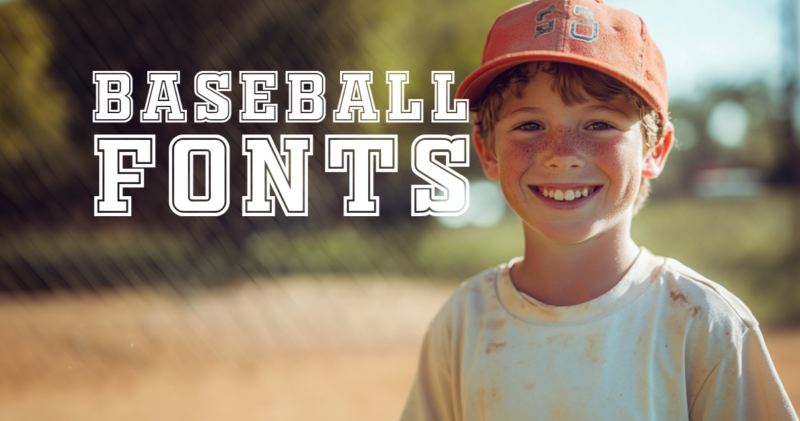
Hey baseball fans (or font enthusiasts?)… Buckle up for a typographic journey that’s about to knock it out of the design park.
Having weathered two decades of digital design, I’ve watched fonts fly by faster than a blazing fastball. But baseball fonts? They’re the all-star players of the typography lineup – timeless, powerful, and always ready to make an impact.
Here are some of my current favs:
The All-Star Lineup… Baseball Fonts That “Hit It Out of the Park”
Baseball
Talk about hitting it out of the park! This font captures the essence of America’s favorite pastime with its playful yet authentic style. It’s perfect for adding that ballpark magic to your projects, whether you’re designing team logos, event posters, or even baseball-themed party invitations. Trust me, this font will make your designs as exciting as a bottom-of-the-ninth rally!
Basebold – Sport Varsity Baseball Font
Now here’s a font that really steps up to the plate! Basebold is like the cleanup hitter of baseball fonts – bold, confident, and ready to make an impact. Its varsity-inspired look brings that classic ballpark energy to any design. Whether you’re creating sports branding or just want to add some athletic flair to your work, Basebold is ready to play ball!
Groundout
Inspired by the iconic San Francisco Giants logo, Groundout is a real heavy hitter in the world of baseball fonts. Its bold, no-nonsense style practically screams “Take me out to the ball game!” This font is perfect for when you need your designs to have that all-American, heritage baseball team vibe. From sports logos to vintage-style posters, Groundout is ready to knock it out of the park!
Broffont
Batter up! Broffont steps to the plate with a script that’s as smooth as a well-oiled glove. With its vintage-inspired curves and two delightful variants, this font is like having a switch-hitter in your design lineup. Whether you’re crafting a retro team logo or adding some ballpark flair to your branding, Broffont is ready to play ball with style!
Desporm – Sport Display Typeface
Desporm steps up to the plate with a typeface that’s as dynamic as a bases-loaded showdown. This sport display font captures the raw energy and toughness of athletic competition. It’s like having a MVP slugger in your design lineup – powerful, attention-grabbing, and ready to deliver clutch performances. Whether you’re crafting team logos, event posters, or sports apparel, Desporm is primed to hit your designs out of the park!
Changeball
Just like its namesake pitch, Changeball keeps your designs interesting with its smooth, rounded corners and heritage-inspired look. This font throws a curveball to boring typography, perfect for when you need your sports logos, apparel designs, or magazine headlines to really sing. It’s the typographic equivalent of a perfect changeup – unexpected and totally effective!
Garnesline Baseball Sport Font
Garnesline steps up to the plate with a retro-style script that’s as classic as a seventh-inning stretch. This font brings the nostalgia of old-school baseball to your designs, perfect for team jerseys, vintage-inspired logos, or any project that needs a touch of America’s pastime. With Garnesline, you’ll knock your designs right out of the park!
Baseball Sport – Sport Varsity Baseball Font
Batter up! Baseball Sport steps to the plate with not one, but two heavy-hitting styles. This font family is like having a versatile switch-hitter in your design lineup. Whether you’re creating eye-catching headlines or crafting the perfect sports logo, Baseball Sport delivers that classic varsity vibe with a modern twist. It’s a real game-changer for any designer looking to hit a home run with their projects!
Detourne – Baseball Script Font
Detourne steps up to the plate with a script that’s as smooth as a well-executed double play. This font brings that classic baseball elegance to your designs, perfect for everything from team logos to vintage-inspired posters. With its fluid letterforms and retro charm, Detourne is like having a Hall of Fame calligrapher on your design team. Get ready to knock your projects out of the park!
Valro – Baseball Script Font
Valro steps up to the plate with a bold script that’s as American as apple pie and, well, baseball! This font brings that classic 80s and 90s energy to your designs, perfect for sports teams looking to up their branding game or anyone wanting to add a touch of retro coolness to their work. Valro is like the cleanup hitter of fonts – it’s going to make a big impact every time!
Varsity Modern – Sport Baseball Varsity Font
Varsity Modern steps up to bat with a font that’s as bold and dynamic as a grand slam in the bottom of the ninth. This typeface captures the spirit of the game while adding a contemporary twist that’ll make your designs pop. Whether you’re creating team merchandise or designing for the big leagues, Varsity Modern brings that winning combination of classic athletic style and modern flair. It’s a real MVP in any designer’s font lineup!
Supportex – Sport Baseball Font
Supportex steps up to the plate with a slab serif that’s as solid as a well-worn baseball glove. This font exudes strength and confidence, perfect for when you need your designs to hit it out of the park. Whether you’re creating bold sports logos, eye-catching posters, or standout apparel, Supportex is your cleanup hitter. It’s got the power to turn any design into a home run!
Baseball – Modern Display Font
Batter up! This modern display font steps to the plate with a design that’s as sleek and powerful as a perfectly swung bat. It captures the energy and excitement of America’s favorite pastime while adding a contemporary twist. Whether you’re designing for the big leagues or just want to add some sporty flair to your project, this font is ready to knock it out of the park. It’s a real game-changer for any designer looking to hit a home run with their typography!
Baseball Heroes | Fancy Handwritien Font
Step up to the plate with Baseball Heroes, a font that swings for the fences with its fancy, handwritten style. This script is perfect for adding a touch of personal flair to your designs, whether you’re creating custom jerseys, autograph-style graphics, or adding some pizzazz to your baseball-themed invitations. With Baseball Heroes, your designs will be signing autographs in no time!
Slemaxo – Baseball & College Font
Slemaxo steps up to bat with a font that’s as versatile as a utility player and as bold as a cleanup hitter. This typeface brings that classic college and baseball aesthetic to your designs, perfect for everything from team logos to campus merch. Whether you’re designing for the diamond or the quad, Slemaxo is ready to play ball. It’s like having an all-star player in your typographic lineup!
Radley – Urban Display
Radley steps up to the plate with an urban flair that’s as bold as a walk-off home run. This all-caps display font brings a street-smart edge to your sports branding game. With four fonts in its lineup, Radley is like having a versatile switch-hitter on your design team. Whether you’re creating edgy team logos or urban-inspired sports apparel, Radley is ready to bring that city energy to your projects. Batter up for some serious typographic attitude!
Brockies – Sport Display Font
Brockies steps up to bat with a sporty, elegant swing that’s as smooth as a well-executed double play. This display font brings that classic college vibe to the ballpark, creating a perfect fusion of athletic spirit and typographic finesse. With its thick, sturdy letterforms, Brockies is like the power hitter of your font lineup – it’s going to make a big impact every time. Whether you’re designing team merch or creating sports-themed graphics, Brockies is ready to play ball with style!
Dasport – Baseball Sport Font
Dasport steps up to the plate with a modern, bold attitude that’s as refreshing as a perfect game on a summer afternoon. This display font brings a unique twist to the baseball typography world with its distinctive lowercase characters. It’s like having a rookie sensation in your design lineup – fresh, exciting, and ready to make a statement. Whether you’re creating cutting-edge sports branding or adding some athletic flair to your projects, Dasport is ready to knock it out of the park!
Camphound
Camphound marches onto the field with the precision of a well-drilled team and the spirit of a championship varsity squad. This slab serif font brings a perfect blend of athletic energy and military discipline to your designs. It’s like having a seasoned coach in your typography arsenal – reliable, authoritative, and ready for any design challenge. From sports team logos to motivational posters, Camphound is set to lead your projects to victory!
Gridiron Glory – Sport Typeface
Gridiron Glory charges onto the scene with all the power and prestige of a hall-of-fame inductee. This sport typeface may have ‘gridiron’ in its name, but it’s versatile enough to play any position in your baseball designs. With its bold letterforms and sharp angles, it’s like having an all-star athlete in your font roster – strong, dynamic, and ready to make an impact. Whether you’re designing team jerseys or championship banners, Gridiron Glory is set to score big!
Squiborn – Logo Font
Squiborn steps up to bat with a hand-drawn charm that’s as authentic as a weathered baseball glove. This display font brings a personal touch to your designs, perfect for creating logos that feel like they’ve been part of the team for generations. It’s like having a skilled sign painter on your design squad – adding character and warmth to every letter. From team merchandise to stadium signage, Squiborn is ready to make your baseball branding feel like home!
Reach – Sports Font
Reach stretches out and grabs attention like an outfielder making a game-saving catch. With 12 versatile styles in its lineup, this font is like having an entire All-Star team at your fingertips. From solid power hitters to speedy base-stealers, Reach has a style for every design situation. Whether you’re crafting bold team logos or creating eye-catching game day posters, Reach is ready to extend your designs beyond the outfield fence!
Brokstate – A Modern Sport Serif Font
Brokstate steps onto the diamond with a modern flair that’s as fresh as opening day. This sport serif font brings a contemporary twist to classic baseball typography. It’s like having a rookie sensation who respects the game’s traditions while bringing new energy to the field. Perfect for logos, jerseys, or any project that needs to balance timeless appeal with cutting-edge style. With Brokstate in your lineup, your designs are sure to be the talk of the league!
Haglos – Retro Script Font
Haglos swings for the fences with a bold, flowing script that’s as smooth as a well-oiled double play. This retro font brings a touch of nostalgia to your designs, perfect for creating that classic ballpark feel. It’s like having a vintage baseball card come to life in your projects. Whether you’re designing team logos, crafting retro-inspired merchandise, or adding some old-school cool to your social media graphics, Haglos is ready to knock it out of the park!
Holborn – Classy Serif Typeface
Holborn steps up to the plate with a classy serif that’s as refined as a perfectly executed squeeze play. This typeface brings a touch of elegance to the ballpark, perfect for when you want your designs to hit for both power and average. It’s like having a seasoned veteran in your lineup – reliable, respected, and always delivering in clutch situations. Whether you’re creating upscale team branding or designing for a black-tie baseball gala, Holborn is ready to class up your typographic game!
Chicago Shift
Chicago Shift slides into home with a font that’s as versatile as a utility player and as iconic as the Windy City itself. This sports-themed typeface brings that perfect blend of old-school cool and modern edge to your designs. It’s like having a Chicago-style hot dog in font form – classic, with all the right toppings. Whether you’re creating vintage-inspired team logos, modern apparel designs, or anything in between, Chicago Shift is ready to cover all your bases with style!
What Makes a Baseball Font Feel Authentic and Fun?
Now that we’ve seen lineup of fonts, let’s talk about what gives a baseball font that authentic, “take me out to the ballgame” vibe. It’s not just about slapping some stitches on letters and calling it a day (though that can look pretty cool). Here’s what I’ve noticed makes a baseball font really sing:
1. Swooshes and Swashes
Remember those fancy signatures of baseball legends? That’s the energy we’re going for. The best baseball fonts often feature sweeping curves and dramatic flourishes that mimic the motion of a well-hit ball or a player’s signature swing. These fun fonts might also work well.
2. Bold, Chunky Letterforms
Baseball is a bold sport, and its fonts should match that energy. Thick, sturdy letters stand out on jerseys and signage, just like a home run hitter at the plate.
3. Retro Vibes
There’s something inherently nostalgic about baseball, isn’t there? Many great baseball fonts tap into that nostalgia with a vintage or retro feel. Think old-school scoreboard lettering or classic team logos.
4. Slanted or Italicized Text
This gives the impression of speed and movement, like a player sliding into home base. It adds that dynamic quality that’s so crucial in sports design.
5. Unique Serifs and Edges
Look for fonts with interesting serifs or edging that might mimic the stitching on a baseball or the shape of home plate. These little details can really knock it out of the park (pun absolutely intended).
6. All-American Flair
Baseball is America’s pastime, after all. Fonts that capture that all-American spirit with stars, stripes, or eagle-wing-like flourishes can really hit home.
How to Pick the Perfect Baseball Font
Alright, you’ve seen the roster, but how do you choose the MVP for your project? Here’s my playbook for selecting the perfect baseball font:
1. Know Your League
Are you designing for a professional team, a local little league, or just adding some sporty spice to a non-baseball project? The level of formality and professionalism you need will guide your choice.
2. Consider the Position
Where will this font be used? On jerseys? Signage? A website? Some fonts that look great on a big scoreboard might strike out on smaller applications.
3. Check the Stats
Make sure your chosen font has all the players you need – numbers, special characters, and possibly alternate glyphs for some extra flair.
4. Test Its Versatility
The best baseball fonts can play multiple positions. They should look good in various sizes and weights, from headlines to body text.
5. Mind the Era
If you’re going for a specific time period, choose a font that matches. A sleek, modern font might look out of place for a vintage-inspired design, and vice versa.
6. Pair It Up
Consider how your baseball font will play with others. You might want a bold, swooshy font for headers paired with a cleaner sans-serif for body text.
Where Can You Use Baseball Fonts in Your Design?
Now that you’ve got your perfect baseball font, where can you show it off? The possibilities are as endless as extra innings! Here are some of my favorite places to let baseball fonts shine:
1. Team Branding
Obviously, this is the home field for baseball fonts. Logos, jerseys, and merchandise all benefit from that ballpark typography.
2. Event Posters:
Hosting a baseball-themed party or event? A great baseball font can set the tone right off the bat.
3. Sports Bars and Restaurants:
Nothing says “watch the game here” like some well-placed baseball-inspired signage.
4. Baseball Card Designs:
Whether you’re creating actual cards or just going for that aesthetic, baseball fonts are a must.
5. Seasonal Promotions:
Even non-sports businesses can get in on the action during baseball season with some themed marketing materials.
6. School Spirit:
High schools and colleges with strong baseball programs can use these fonts to boost team pride.
7. Retro and Vintage Designs:
Baseball fonts can add a touch of nostalgia to any project, even if it’s not directly related to the sport.
8. Apparel Design:
T-shirts, caps, and other clothing items look great with baseball-inspired typography.
9. Sports Apps and Websites:
Digital platforms focused on baseball stats, news, or fantasy leagues can use these fonts for a thematic touch.
When to Bench Your Baseball Font
What Are Some Good Baseball Font Alternatives?
Sometimes, you want that sporty feel without going full baseball. Here are some alternatives that can still hit it out of the park:
1. Block Serif Fonts:
These give you that strong, athletic feel without the specific baseball associations.
2. Slab Serifs:
For a robust, no-nonsense look that still says “sports” without screaming “baseball.”
3. Brush Script Fonts:
These can capture that sense of movement and energy without the specific baseball connotations.
4. Stencil Fonts:
Great for a tough, team-spirit vibe that works across various sports.
5. Varsity and College Fonts:
These capture that athletic spirit and work well for any sport, not just baseball.
6. Art Deco Fonts:
For a touch of vintage class that nods to baseball’s golden age without being too on-the-nose.
FAQs: Your Baseball Font Questions, Answered!
Let’s cover some bases with these frequently asked questions about baseball fonts:
What fonts do baseball teams use?
Many MLB teams have custom fonts created specifically for their branding. For example, the New York Yankees are known for their iconic interlocking “NY” logo, which isn’t a font per se, but a custom design. However, many teams use variations of strong serif or slab serif fonts for their wordmarks. Some teams, like the Los Angeles Dodgers, have become so iconic that designers have created fonts inspired by their logos.
What is the official baseball font called?
There isn’t one single “official” baseball font. Major League Baseball (MLB) uses a proprietary font for its logo and some official communications, but this isn’t available to the public. However, fonts like “Baseball Script” or “Pro Block” are often associated with the classic baseball look.
Is there a baseball font in Word?
Microsoft Word doesn’t come with a specific “baseball” font pre-installed. However, you can use fonts like “Varsity” or “Impact” to get a sporty feel. For a more authentic baseball look, you’d need to download and install a custom baseball font.
What is the most baseball-y font?
That’s like asking me to pick my favorite child! But if I had to choose, I’d say fonts that mimic the classic swash script seen on jerseys and team logos feel the most authentically “baseball.” Fonts like “Ballpark Weiner” or “Swoosh Script” really knock it out of the park in terms of that classic baseball feel.
Can I use MLB team fonts for my own projects?
Here’s where we need to play by the rules: MLB team fonts and logos are trademarked and can’t be used without permission for commercial projects. However, there are many baseball-inspired fonts out there that can give you a similar look without stepping onto dangerous legal turf.
How do I install custom baseball fonts on my computer?
Great question! For Windows, you typically just need to download the font file, right-click it, and select “Install.” On a Mac, double-click the downloaded font file and click “Install Font.” Just make sure you’re downloading from a reputable source to avoid any foul balls (aka viruses).
Wrapping Up: You’re Now a Baseball Font All-Star!
There you have it, folks – everything you need to know about baseball fonts to knock your next design project out of the park. From understanding what makes these fonts special to knowing when to use them (and when to bench them), you’re now equipped to make your designs as exciting as a bottom-of-the-ninth home run.
Remember, like in baseball, practice makes perfect. Don’t be afraid to experiment with different fonts, pair them in unexpected ways, and really make them work for your specific project. And hey, if you create something awesome with these fonts, I’d love to see it! Drop a comment below or hit me up on social media.